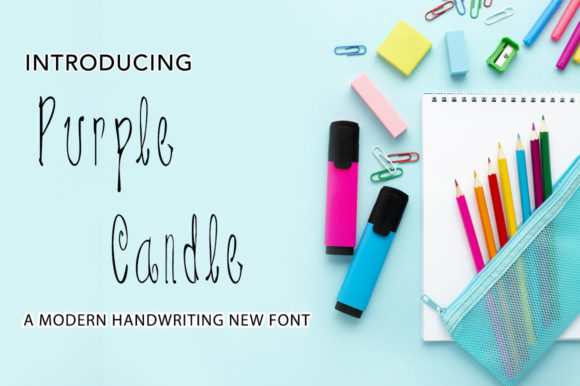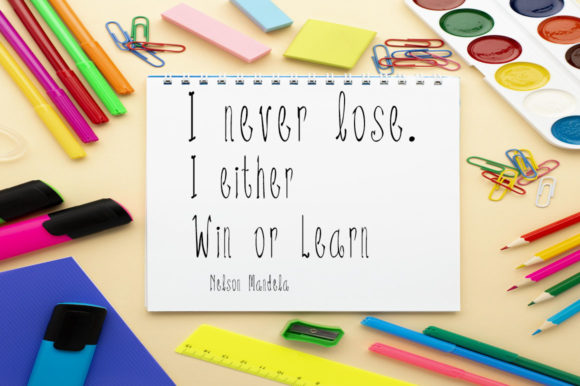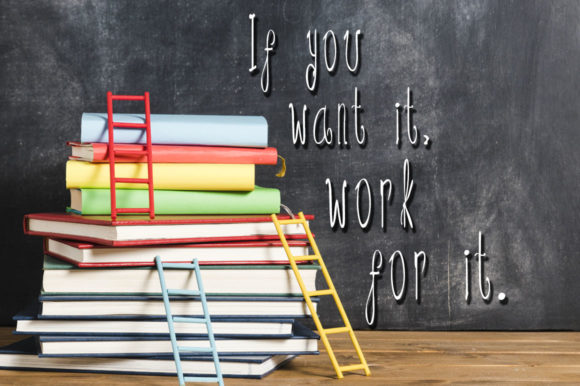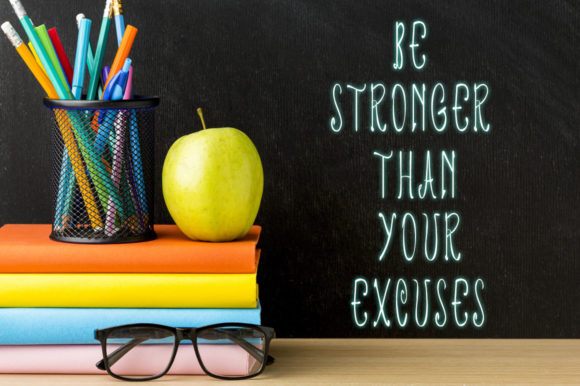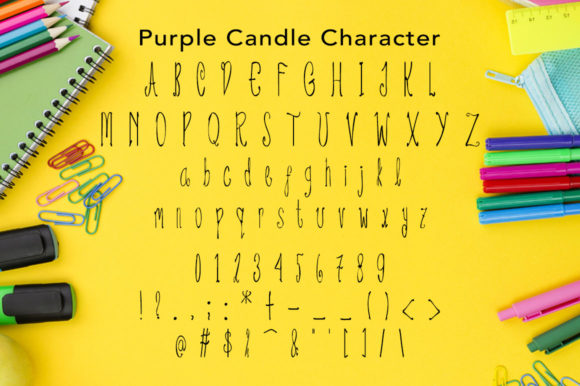
About Purple Candle Font
Purple Candle is a cute and delicate handwritten font. Its natural and unique style makes it incredibly fitting to a large pool of designs. The only limit is your imagination!